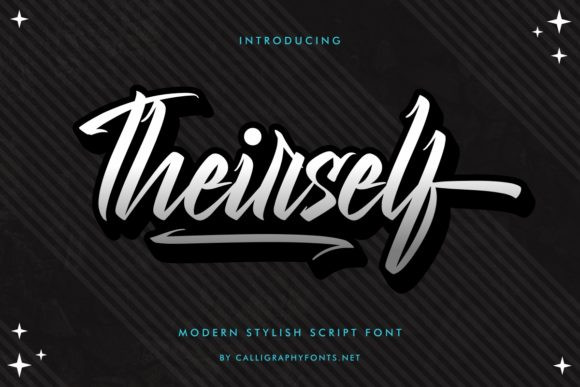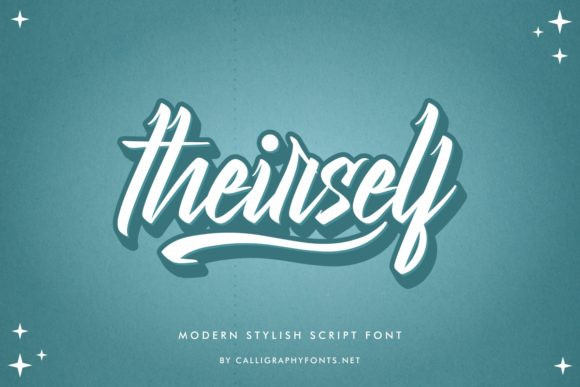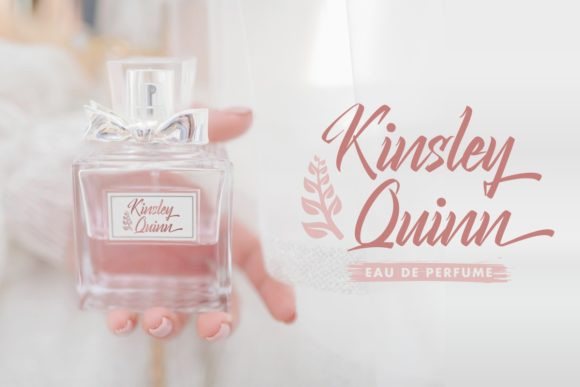
Theirself Font
Theirself is a modern, stylish and daring script font. This font is PUA encoded which means you can access all of the glyphs and swashes with ease! This font reads as strong, confident, and dynamic and can add tons of elegant character to your designs.